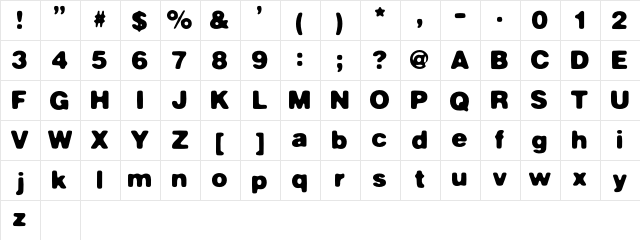
Masterly is a composed and adaptable typeface that performs quietly and consistently across a wide range of design contexts. Its bold stroke weight gives it real presence on the page.